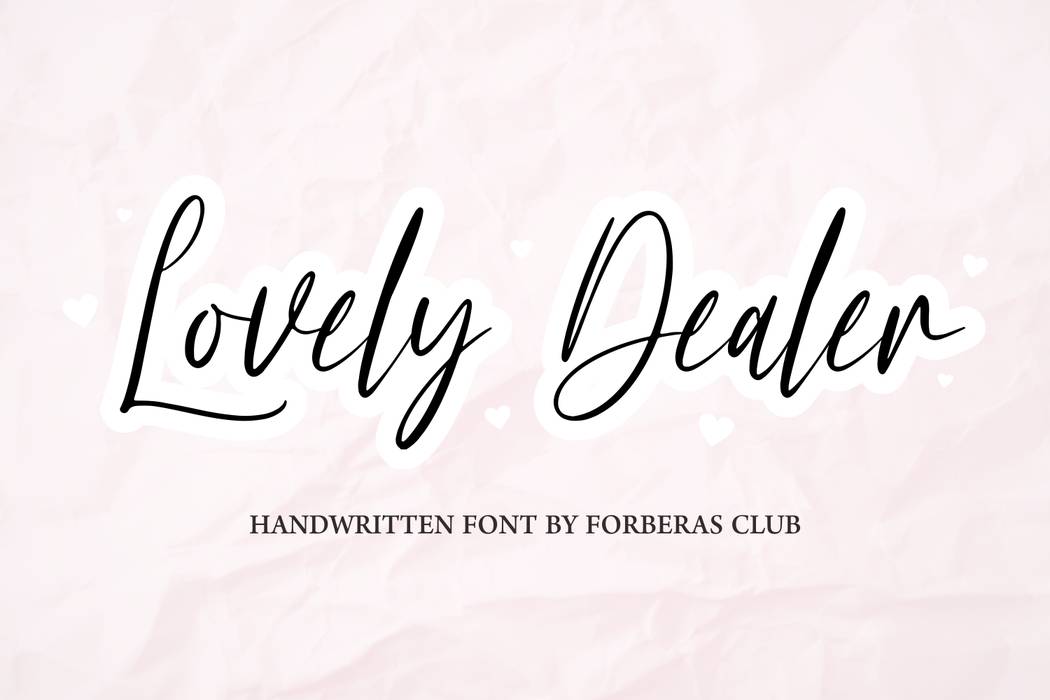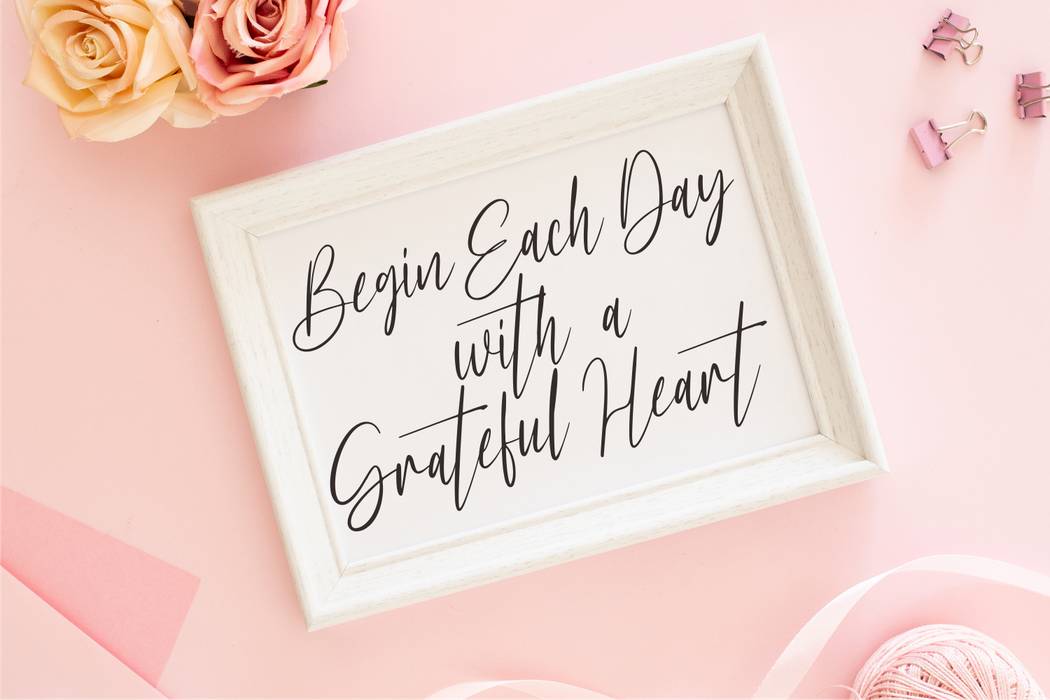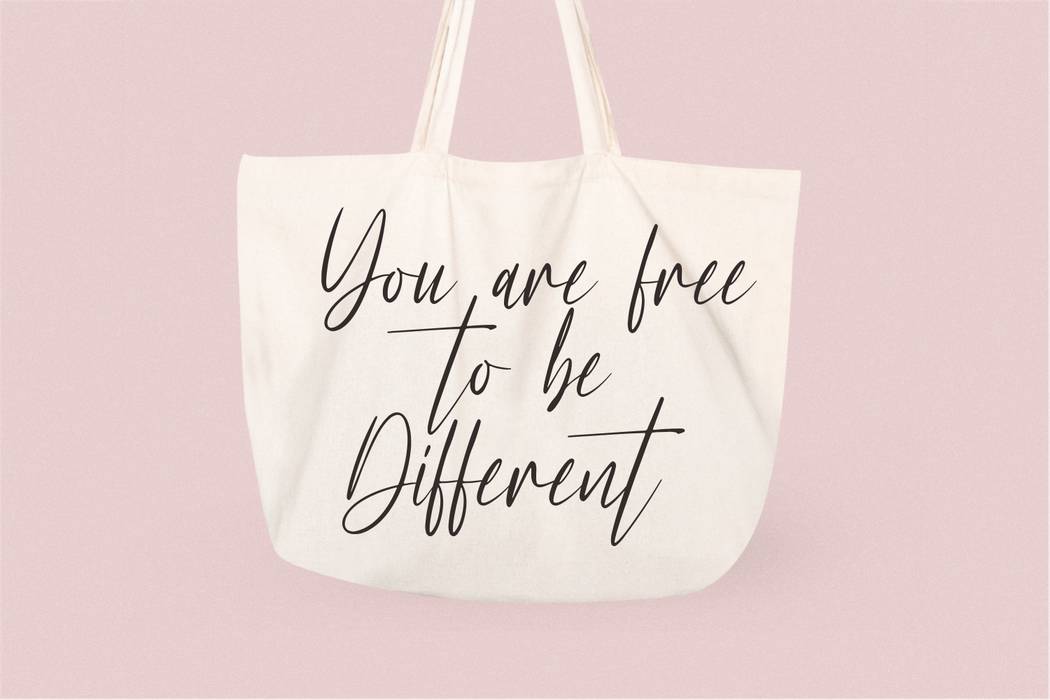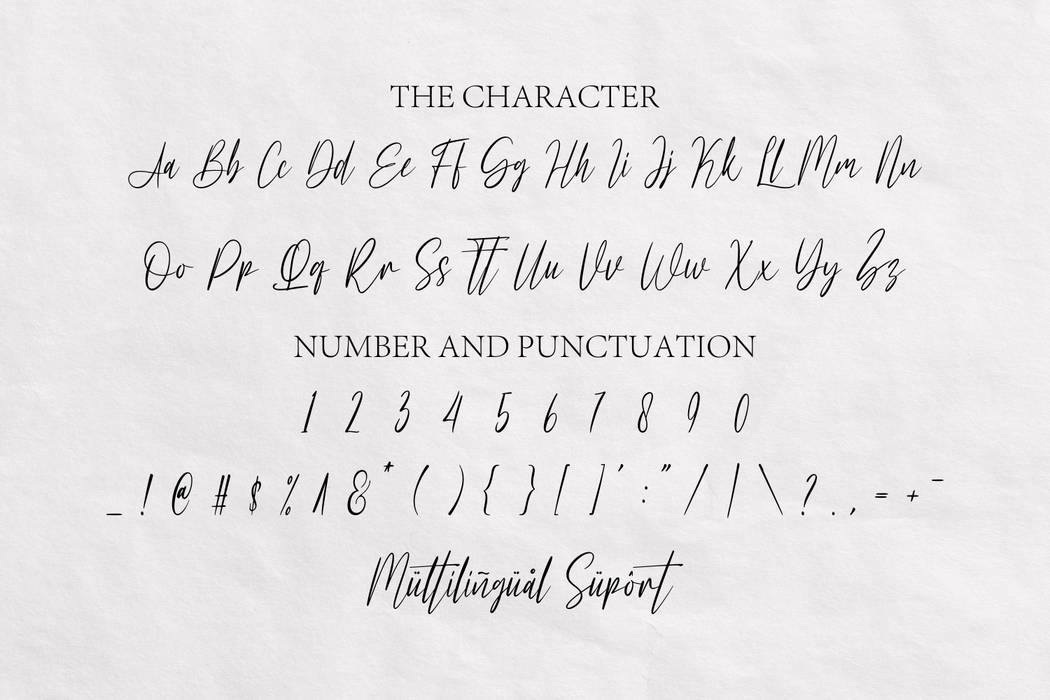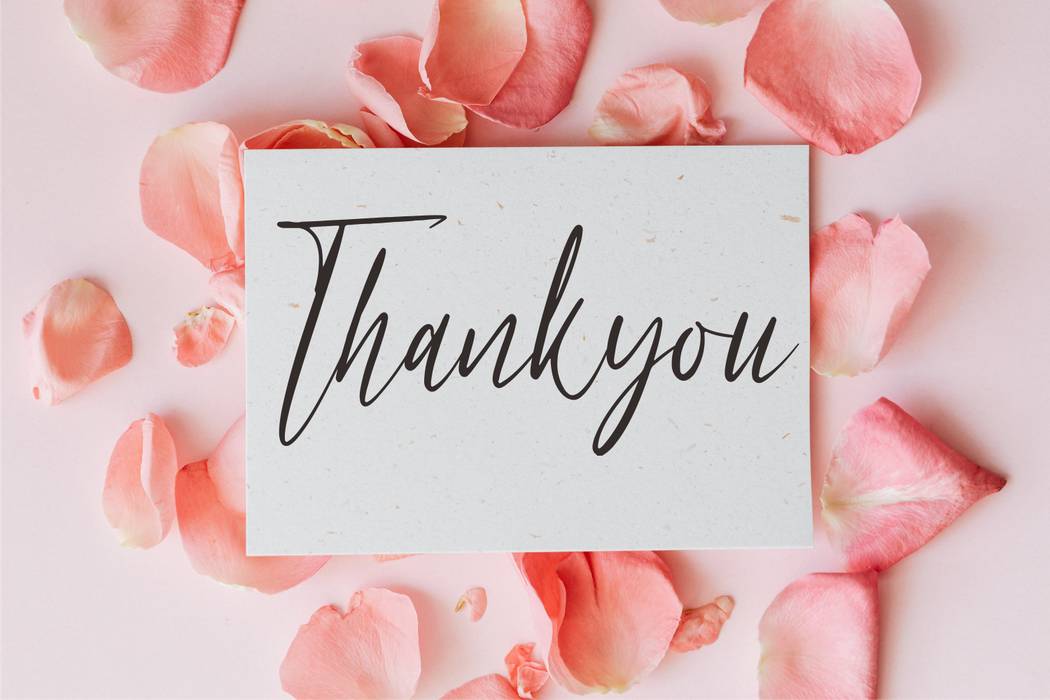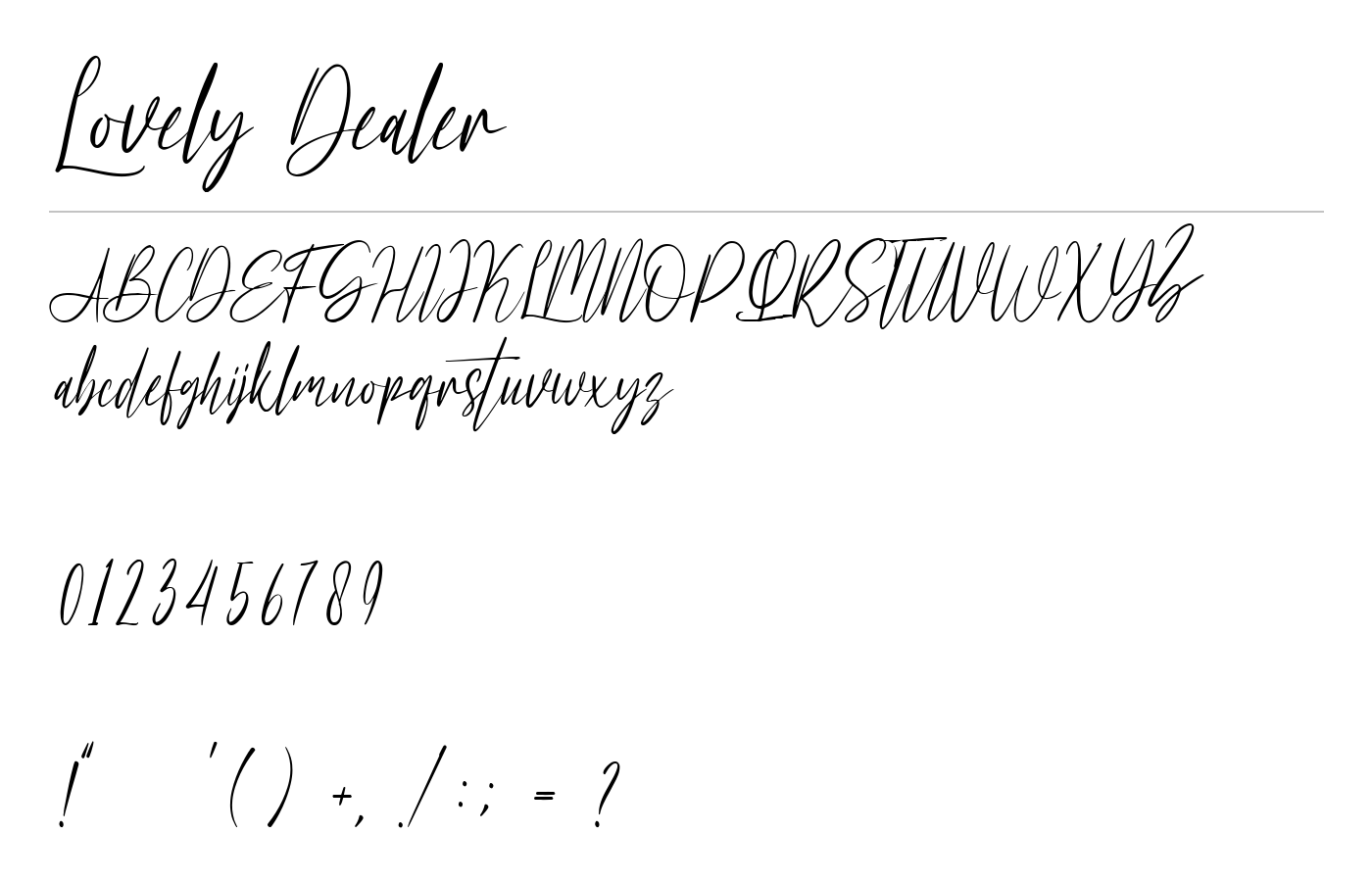
Lovely Dealer is an elegant, handwritten script font with a light weight and tall, narrow letterforms that give it a refined and delicate feel. Its smooth, flowing strokes and distinctive uppercase characters make it perfect for adding a personal, sophisticated touch to invitations, branding, and stylish logos. This font works well in designs that aim to communicate creativity, elegance, and a modern, artistic vibe.
Lovely Dealer Font
About Lovely Dealer Font